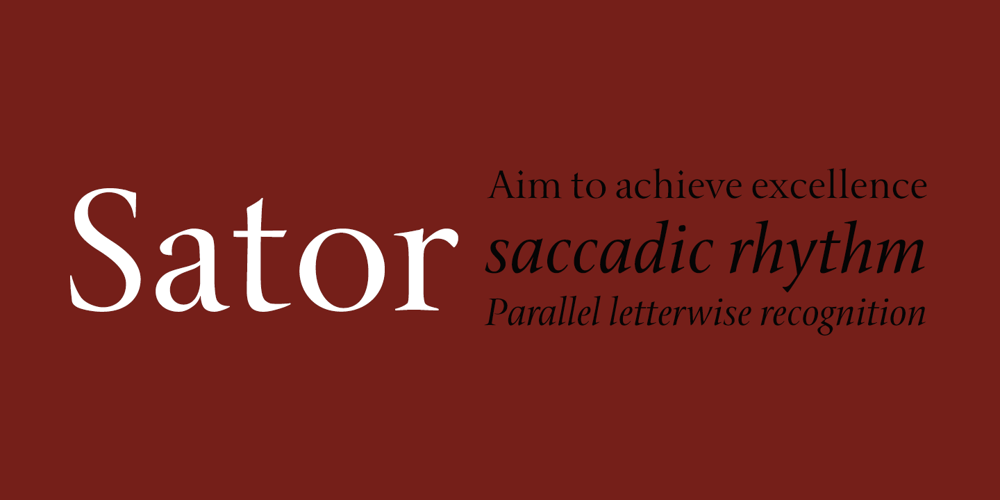
Sator
Sator font
Sator Font Family was designed by Sumner Stone and published by Stone Type Foundry. Sator contains 2 styles and family package options. Sator is an elegant serif display family featuring roman and italic variants.